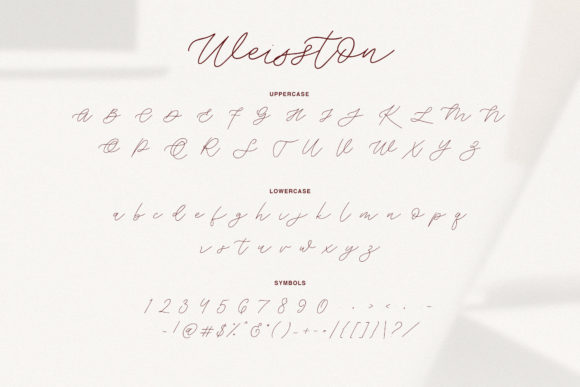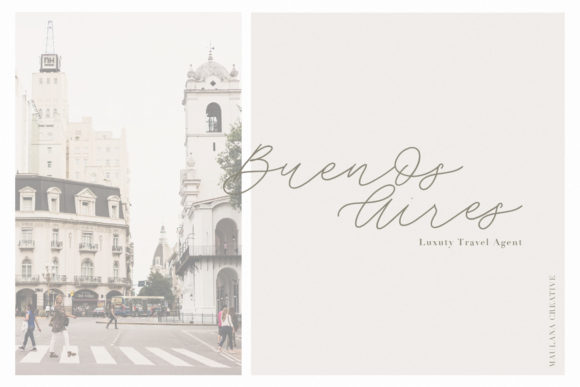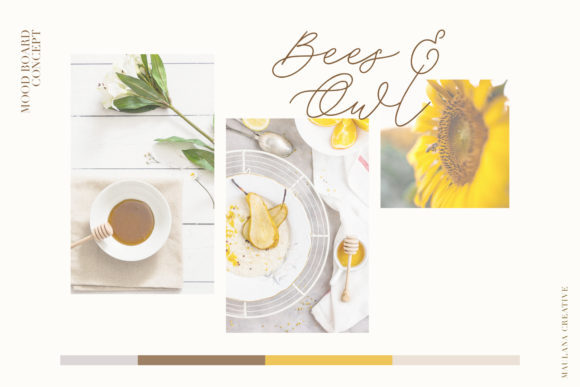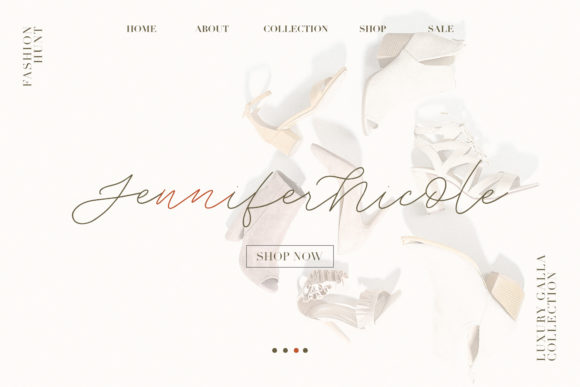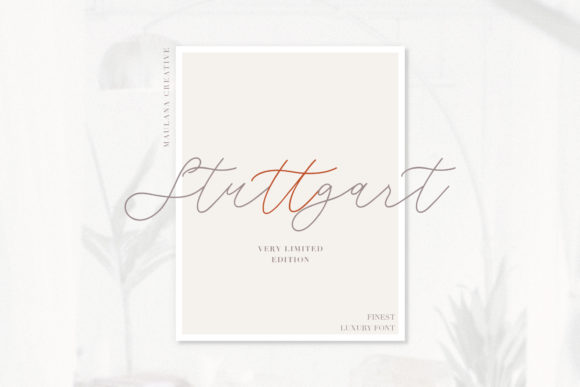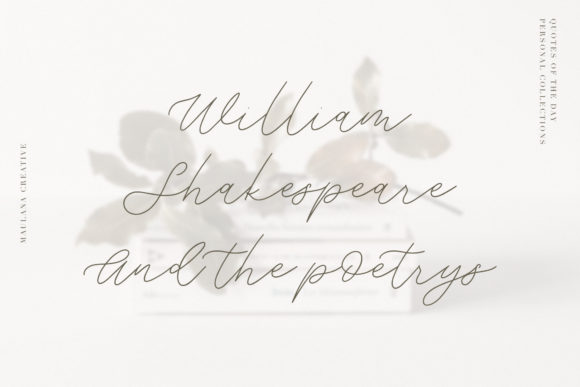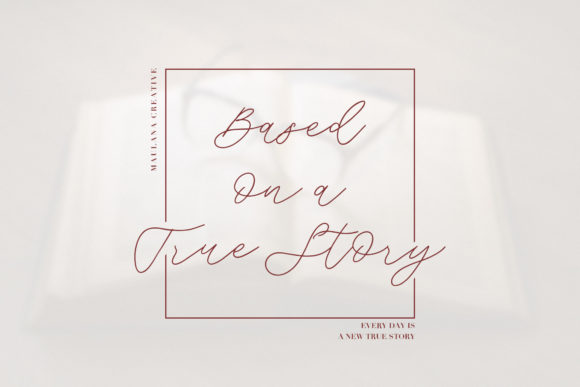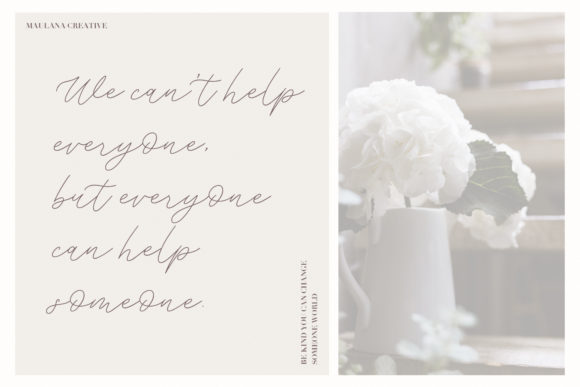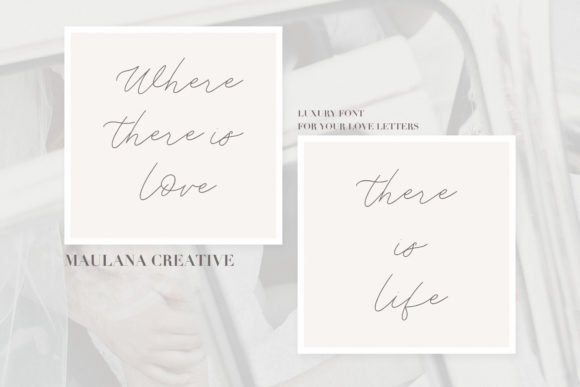
HomeScript FontsWeisston Font Script Fonts Weisston Font FacebookXPinterestWhatsApp Weisston Font Poster 2 Weisston Font Poster 3 Weisston Font Poster 4 Weisston Font Poster 5 Weisston Font Poster 6 Weisston Font Poster 7 Weisston Font Poster 8 Weisston Font Poster 9 Weisston Font Poster 10 About Weisston Font Weisston is a one-of-a-kind script that will give your designs an undeniably authentic feel. DOWNLOAD ON CREATIVE FABRICAThis font is sold and delivered by Creative Fabrica. Font Canyon may earn a commission if you buy through this link. People also explored Kronshtadt Font Swirly Easter Font Sena Nespora Brush Font Gorinchem Font Karmala Font Grindelwald Font Squersmars Wimmer Font Homework Font 255 0 TagsWeisston Font Previous articleFoltta FontNext articleMasstro Font LEAVE A REPLY Cancel reply Comment: Please enter your comment! Name:* Please enter your name here Email:* You have entered an incorrect email address! Please enter your email address here Website: Save my name, email, and website in this browser for the next time I comment. Personal Use Free BD Lofi Personal Use Free Read more about this font Dealisya Personal Use Free Read more about this font Choco Shake Font Personal Use Free Read more about this font Quentin Personal Use Free Read more about this font BLOG The 10 Best Handwriting Fonts to Add Personality to Your Designs 10 of the Best Handwriting Fonts for Adding Personality to Your Designs There will undoubtedly be no other better choice than handwriting fonts to give... Using Fonts in Digital Marketing: Tips to Strengthen Your Brand Identity How to Cut Any Font on Cricut: Convert a Font to SVG (Free) How to Install and Use Fonts on Windows, macOS, and Web Projects